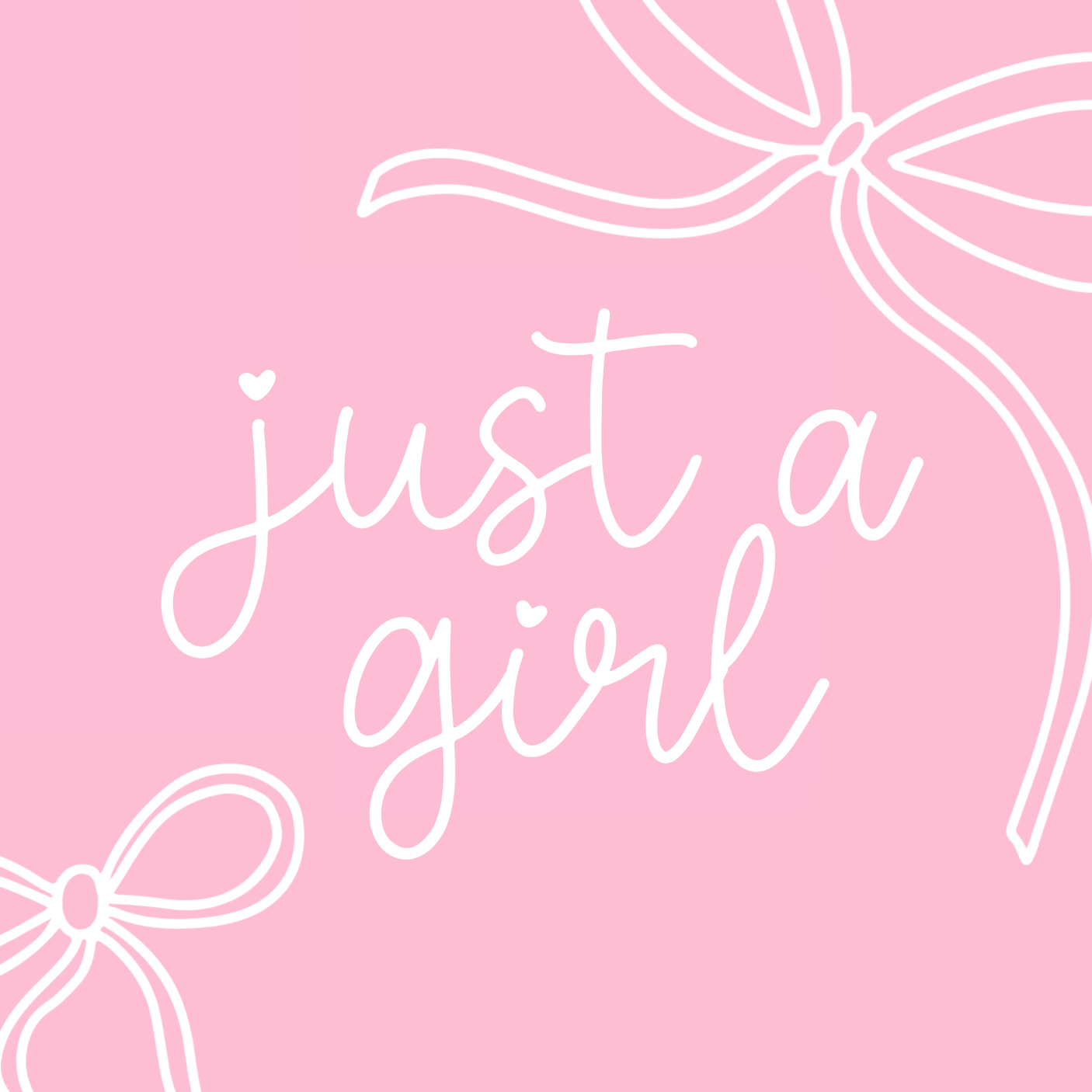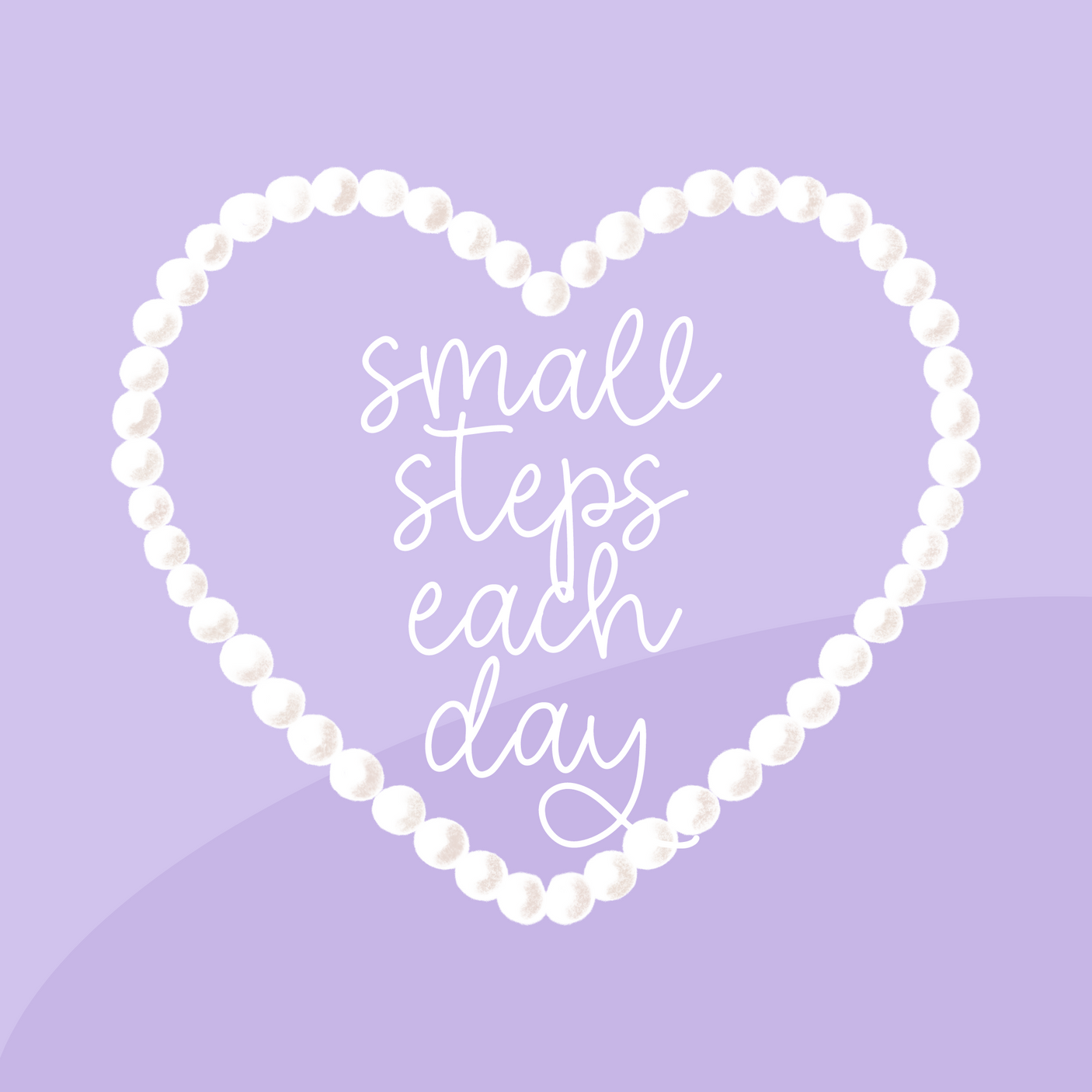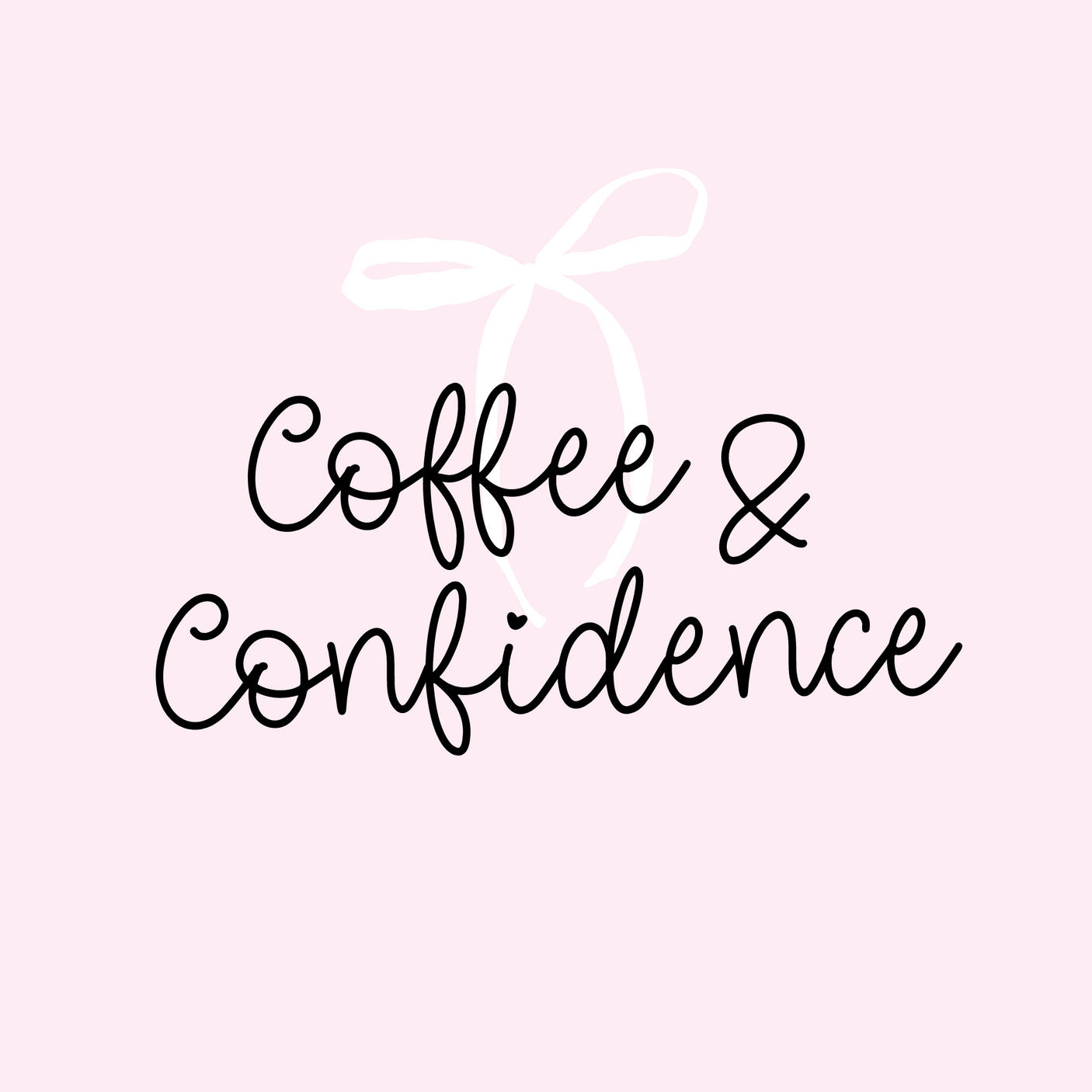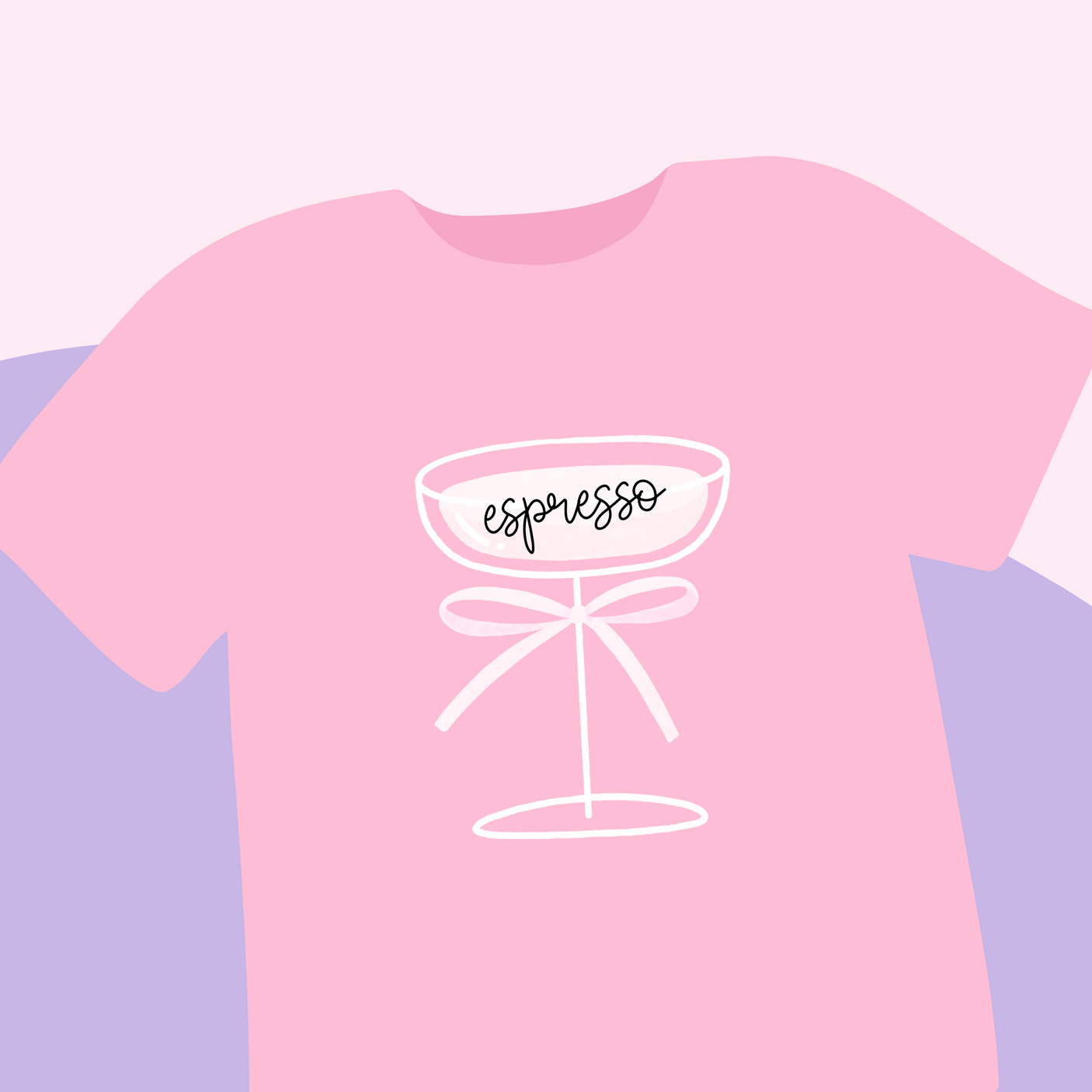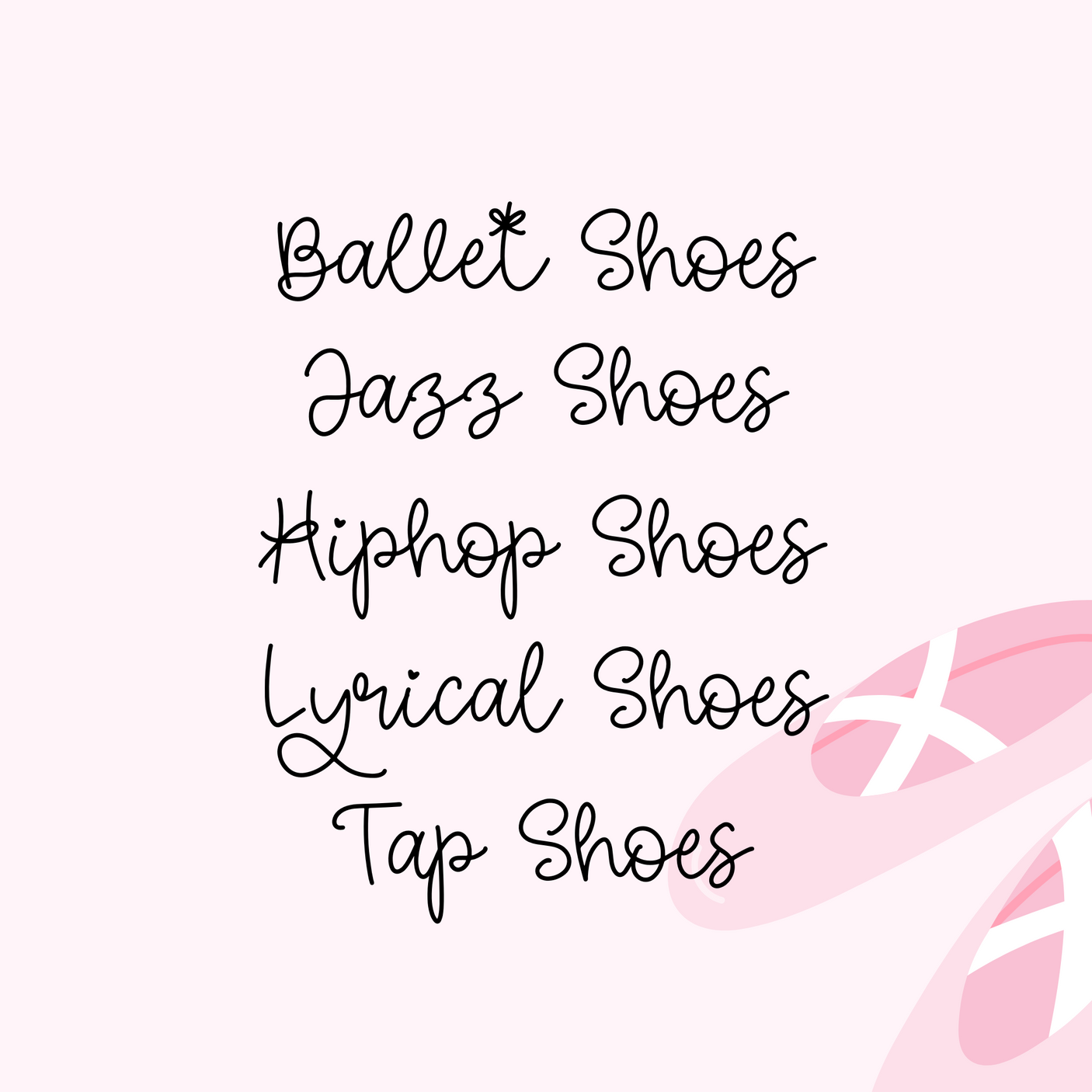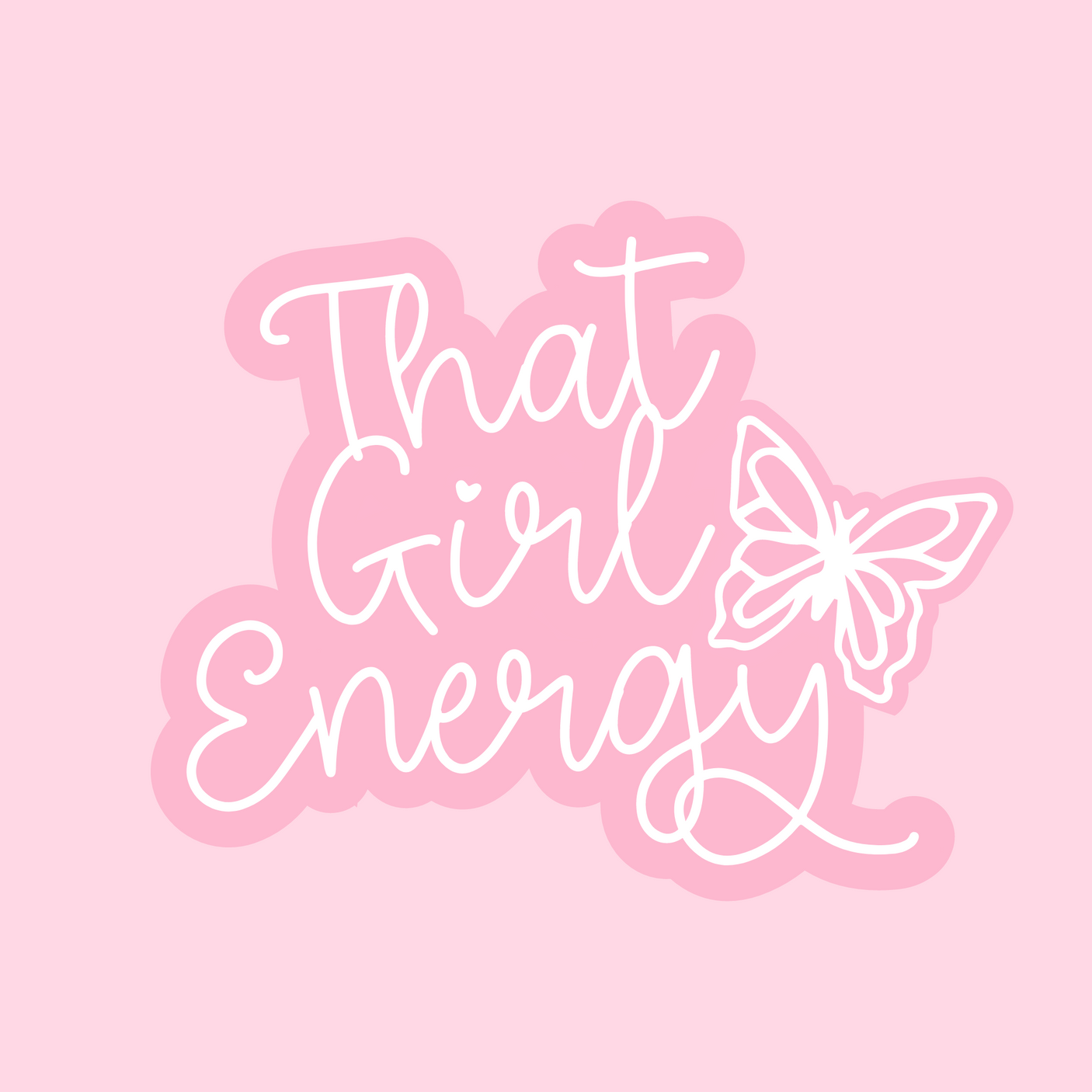
Just A Girl Font
Meet Just A Girl, your new go-to font for all things sweet and feminine. This handwritten script font is packed with personality, bringing a playful yet elegant vibe to every project. Perfect for lettering quotes that brighten your day, or adding a whimsical touch to apparel and accessories, Just A Girl is made for creative souls who love a soft, girly aesthetic. Whether you're designing for print or digital, this font will add the perfect sprinkle of charm to your creations.